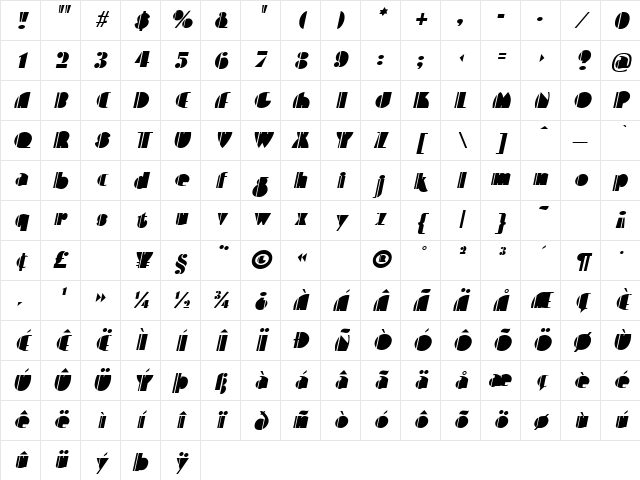
Complete Contemporary Italic glyph index. Displaying only characters natively supported by Contemporary Italic font.
Contemporary is a composed and adaptable typeface that performs quietly and consistently across a wide range of design contexts. The slanted form adds forward momentum and visual energy.